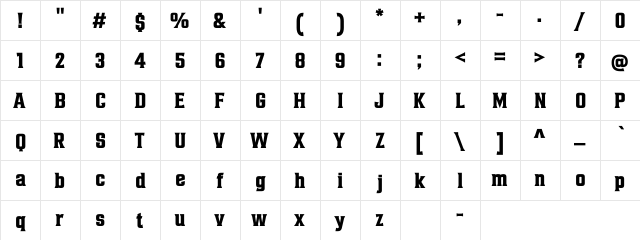
AlterousDisplay Regular
Design Context for AlterousDisplay Typeface
AlterousDisplay brings ornamental detail and strong personality to headlines and identities, where visual impact matters more than quiet functionality.
Font Pairing: Pair with a clean neutral sans-serif for body copy to let AlterousDisplay's character lead without overwhelming the composition.
Pro Tip: Use AlterousDisplay exclusively at display sizes — it was designed to be seen, not read at length. Let a neutral companion handle body copy.